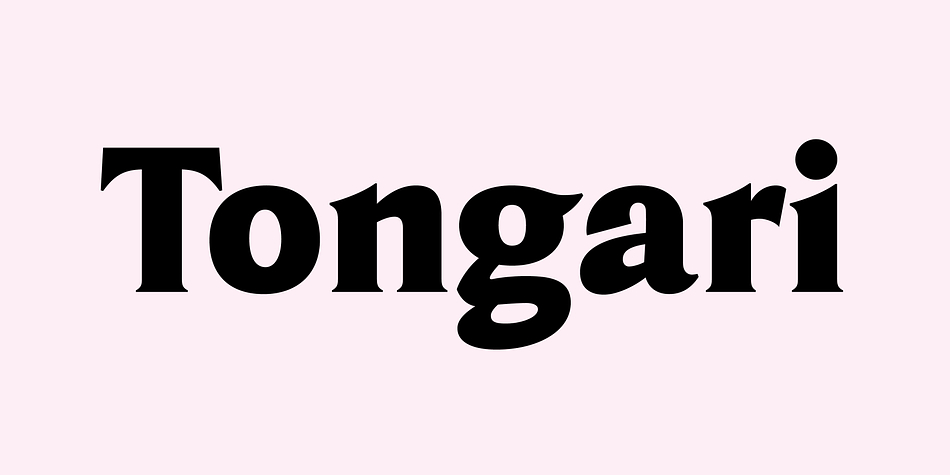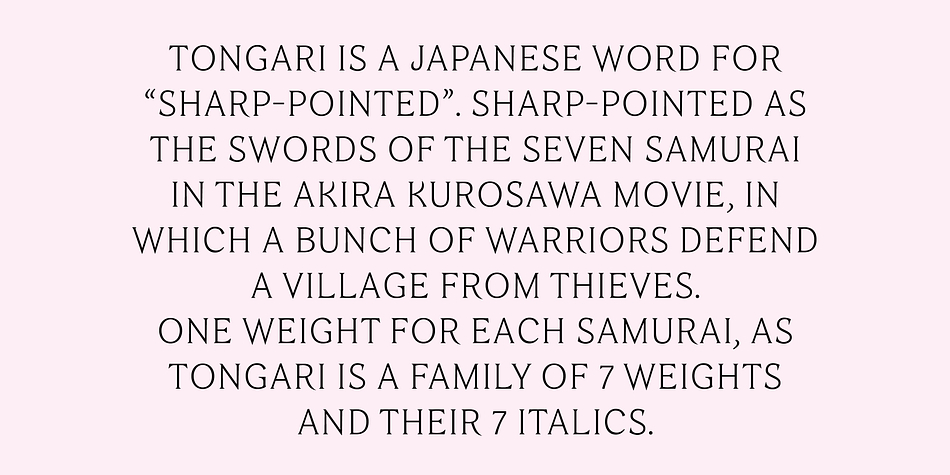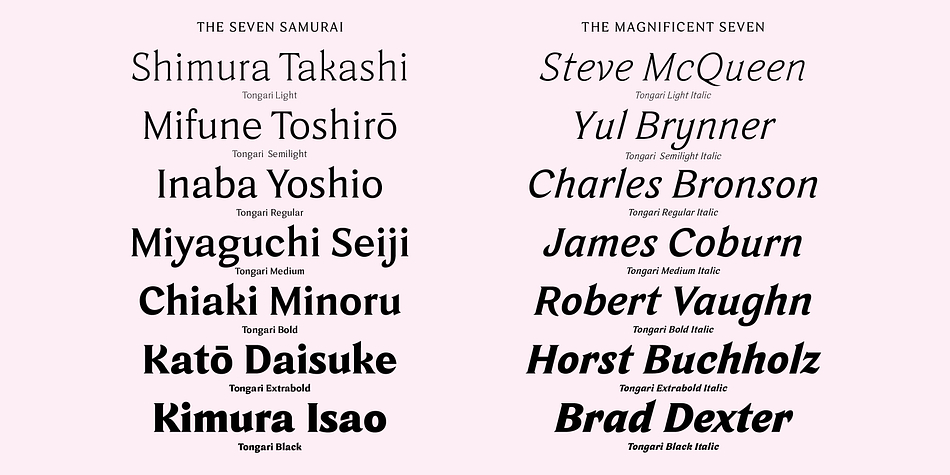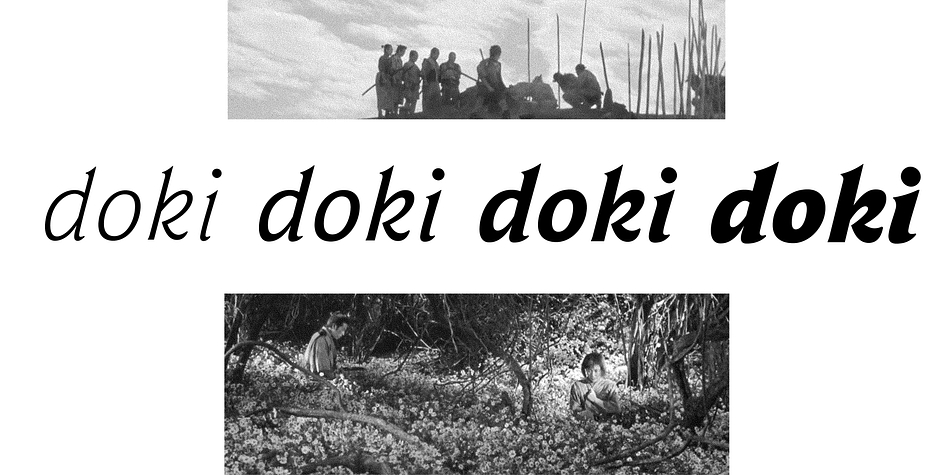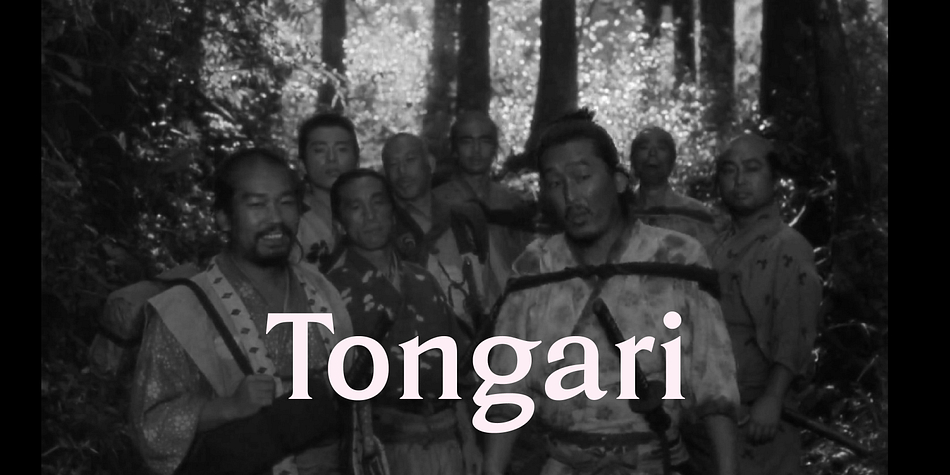
Designed by Émilie Rigaud, Tongari is a serif font family. This typeface has fourteen styles and was published by A is for...
Tongari is the Japanese word for “sharp-pointed”. Sharp-pointed as the swords of the seven samurai in the Akira Kurosawa movie, in which a bunch of warriors defend a village from thieves.
One weight for each samurai, as Tongari is a family of 7 weights and their 7 italics.
Tongari has a lot of personality in large sizes but is also perfectly readable in a 9 point size for long text.